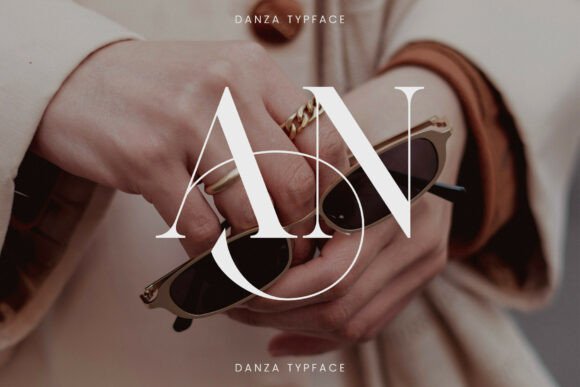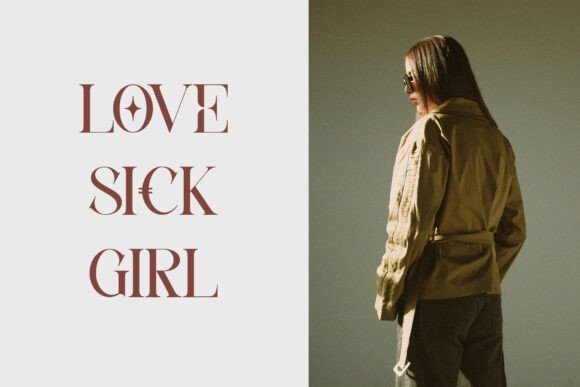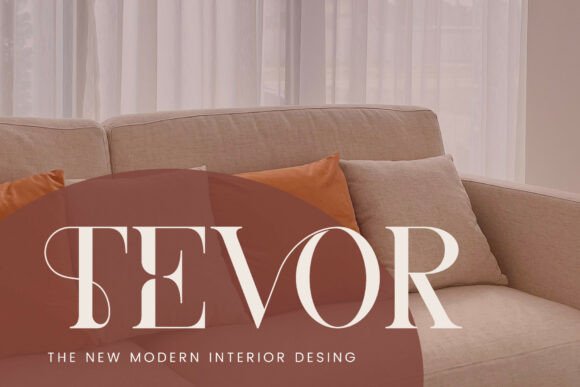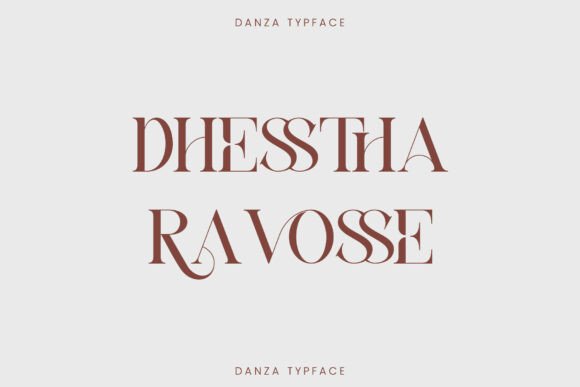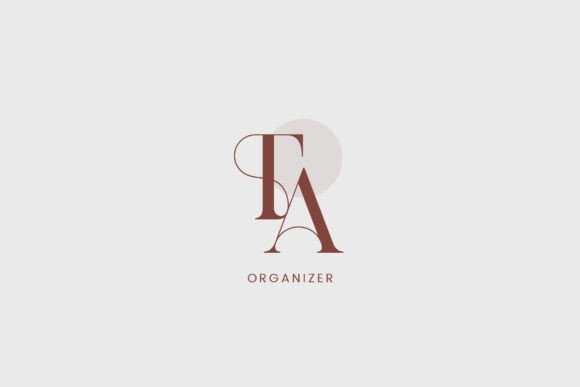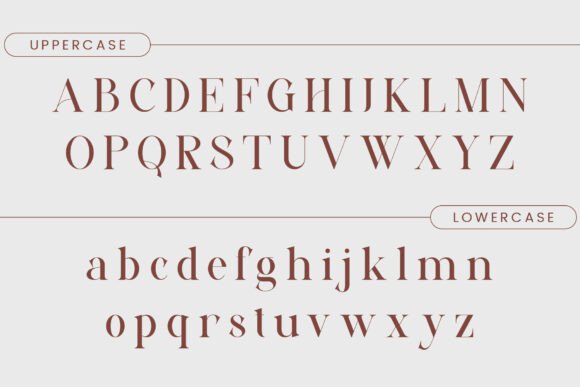
Introducing Danza Font: Elevate Your Designs with Modern Elegance
In the world of design, typography plays a crucial role in conveying messages, expressing creativity, and capturing the audience’s attention. A well-crafted font can elevate your designs, making them look professional, appealing, and memorable. This is where Danza Font comes into play – a modern and minimalist serif font designed to cater to various design needs. In this article, we’ll explore the features, benefits, and uses of Danza Font, and why it’s the perfect choice for designers and crafters.
What is Danza Font?
Danza Font, also known as DANZA – Modern Typeface Serif, is a thoughtfully designed font that embodies modernity and minimalism. Its clean lines, subtle curves, and balanced proportions make it an excellent choice for a wide range of design applications. Whether you’re working on a logo, brochure, video, advertising branding, poster, invitation, or any other project, Danza Font is sure to impress.
Key Features of Danza Font
- Modern and Minimalist Style: Danza Font boasts a sleek and contemporary design, making it perfect for designers who aim to create modern and sophisticated visuals.
- Versatility: This font is suitable for various design needs, including logos, brochures, videos, advertising branding, posters, invitations, and more.
- Professional and Appealing: Danza Font is designed to make your designs look professional and appealing, helping you to stand out from the crowd.
- Easy to Read: The font’s clear and legible design ensures that your message is conveyed effectively, even at small font sizes.
Benefits of Using Danza Font
Using Danza Font in your designs offers several benefits, including:
- Consistency: Danza Font helps maintain consistency across your designs, creating a cohesive visual identity for your brand.
- Time-Saving: With Danza Font, you can save time and effort in selecting and pairing fonts, ensuring a harmonious visual flow.
- Enhanced Creativity: The font’s modern and minimalist style allows you to focus on creative aspects of your design, rather than worrying about typography.
Design Applications of Danza Font
Danza Font is an incredibly versatile font that can be used in a variety of design applications, including:
- Logo Design: Create a lasting impression with a professional and modern logo designed with Danza Font.
- Brochures and Flyers: Use Danza Font to create visually appealing brochures and flyers that capture your audience’s attention.
- Video Subtitles and Titles: Add a touch of elegance to your video subtitles and titles with Danza Font.
- Advertising and Branding: Establish a strong brand identity with Danza Font, perfect for advertising and branding materials.
- Posters and Invitations: Create stunning posters and invitations that showcase your creativity and style.
Tips and Tricks for Using Danza Font
To get the most out of Danza Font, consider the following tips and tricks:
- Experiment with Font Sizes: Danza Font looks great at various font sizes, so don’t be afraid to experiment and find the perfect size for your design.
- Pair with Other Fonts: Combine Danza Font with other fonts to create a unique and visually appealing typography.
- Use in Combination with Images: Pair Danza Font with high-quality images to create stunning visuals that capture your audience’s attention.
In conclusion, Danza Font is an exceptional choice for designers and crafters looking to elevate their designs with modern elegance. Its versatility, readability, and professional appeal make it perfect for various design applications. Whether you’re working on a logo, brochure, video, or any other project, Danza Font is sure to impress. So, why wait? Download Danza Font today and take your designs to the next level!